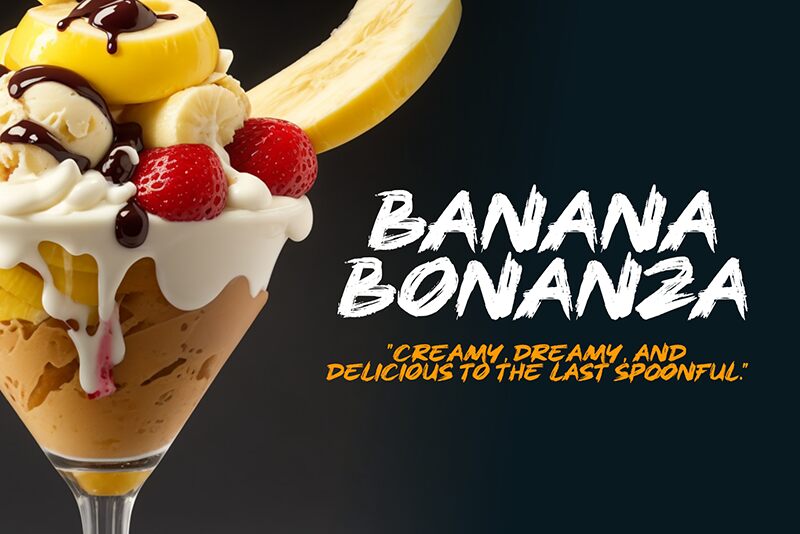
Rough Splash font by DumadiStyle is a free brush font inspired by the chaotic and dynamic style of brush strokes. It has personality and truly stands out with style everywhere where used, beginning with covers and packaging designs and extending to gaming applications. If your project needs a custom feel, then Rough Splash is the font you have been looking for.